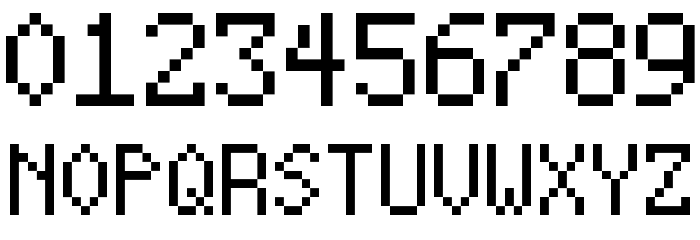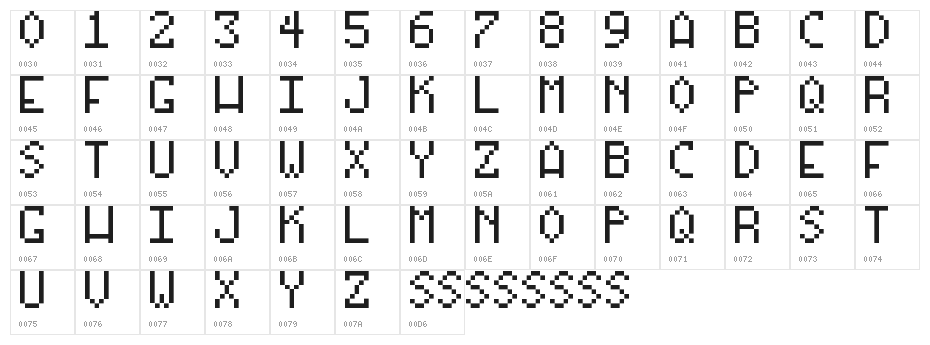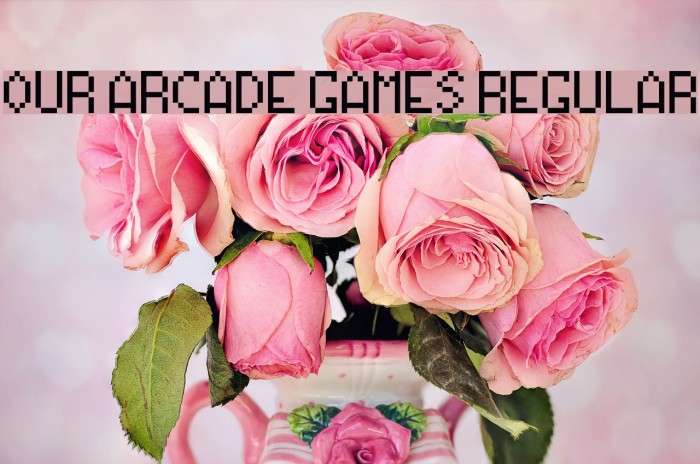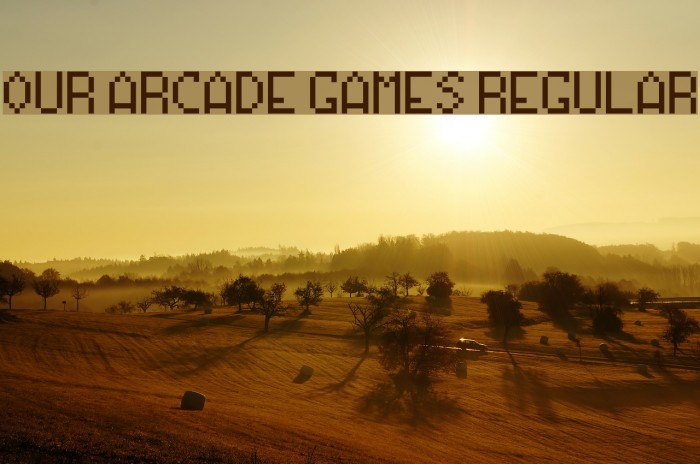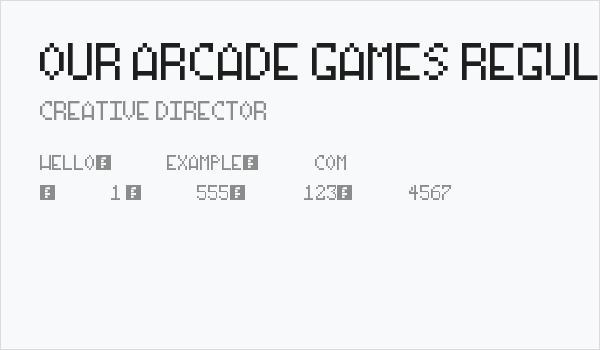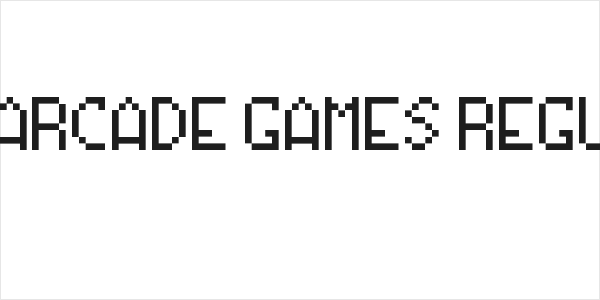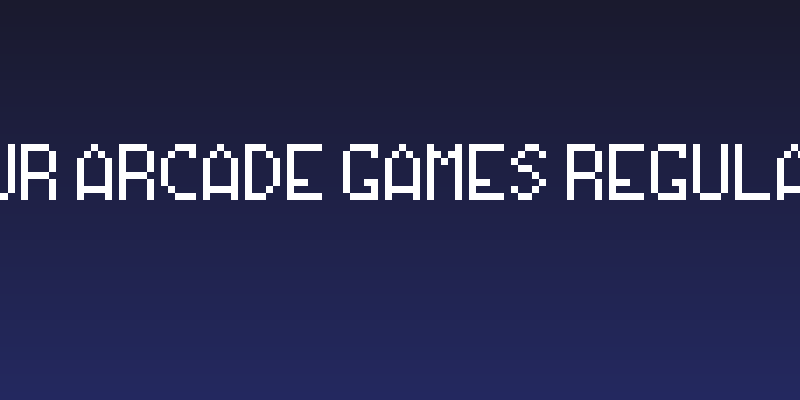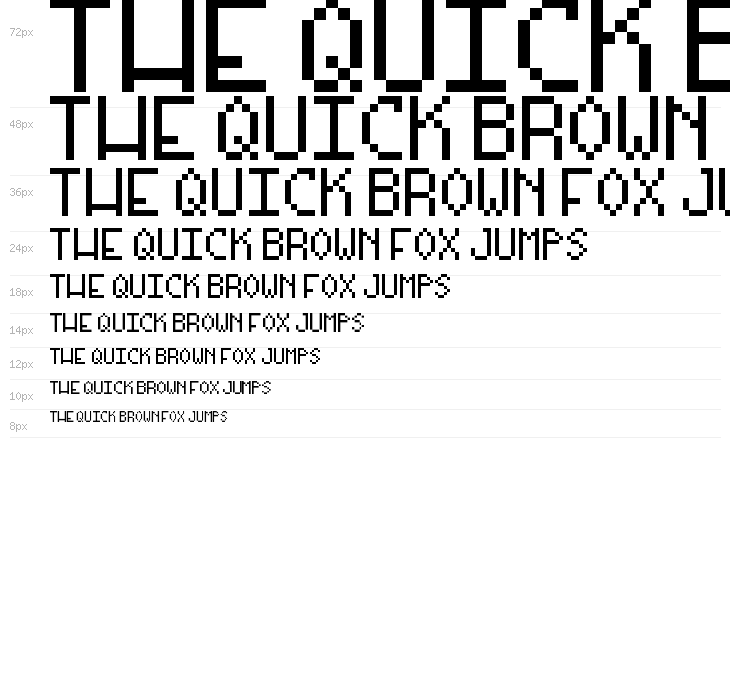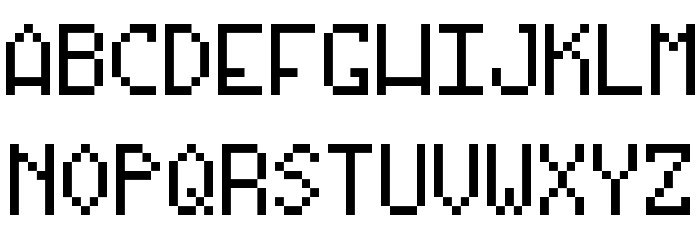
Our Arcade Games Regular Font
Our Arcade Games Regular Description
This font features a pixelated, blocky design reminiscent of classic arcade games from the 1980s. Each character is constructed with a grid-like structure, giving it a retro digital appearance. The uniformity in height and width across all characters creates a cohesive and structured look. The font is highly legible, with clear distinctions between each letter and number, making it ideal for digital displays or projects that aim to evoke nostalgia for early video game aesthetics. The absence of curves and the reliance on straight lines and right angles contribute to its distinctive style.
| Use Case | Logos, Headlines, Digital displays |
| Proposed Projects | Ideal for retro-themed video games, digital displays, posters, and any project seeking to capture the essence of 1980s arcade aesthetics. |